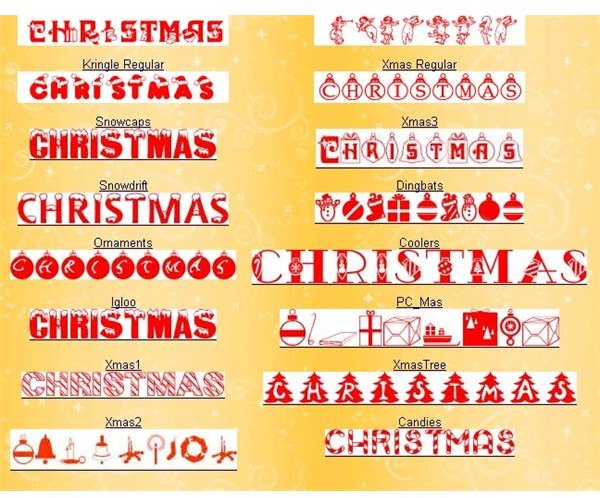
Christmas Fonts From Adobe In 2023
The Perfect Combination of Festive and Professional
The holiday season is a great time to get creative with fonts. Whether you’re a professional graphic designer or a hobbyist, Adobe has you covered when it comes to Christmas fonts. With a wide variety of typefaces, styles, and weights, there’s something for everyone. In this article, we’ll take a look at some of the best Adobe Christmas fonts available in 2023.
Snowflake Fonts
One of the most popular Christmas font styles is the snowflake font. This font style is perfect for winter-themed projects, as it features a variety of snowflake shapes and sizes. Adobe offers a wide selection of snowflake fonts, including the classic Snowflake, the modern Snowfall, and the festive Snowy. All of these snowflake fonts are free to download and use.
Reindeer Fonts
Another popular holiday font style is the reindeer font. This font is perfect for any project that has a Christmas or winter theme. Adobe offers a variety of reindeer fonts, including the classic Rudolph, the modern Blitzen, and the festive Comet. All of these reindeer fonts are free to download and use.
Christmas Tree Fonts
The Christmas tree font is great for any project that needs a festive touch. Adobe offers a wide selection of Christmas tree fonts, including the classic Pine, the modern Spruce, and the festive Holly. All of these Christmas tree fonts are free to download and use.
Gingerbread Fonts
The gingerbread font is perfect for any project that needs a bit of a sweet touch. Adobe offers a variety of gingerbread fonts, including the classic Gingerbread, the modern Gingerbread House, and the festive Gingerbread Cookie. All of these gingerbread fonts are free to download and use.
No matter what type of project you’re working on, Adobe has you covered with their selection of Christmas fonts. From snowflake to reindeer to Christmas tree fonts, there’s something for everyone. All of these fonts are free to download and use, so get creative and have fun!